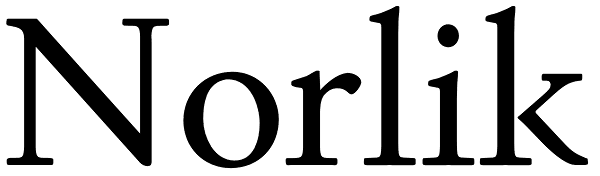
Norlik
A Standard Serif face which displays well in the smaller sizes. The kerning of these fonts has mainly been done by hand. The main idea behind this was an interest in Garamond, where many of the ideas and references were derived from.